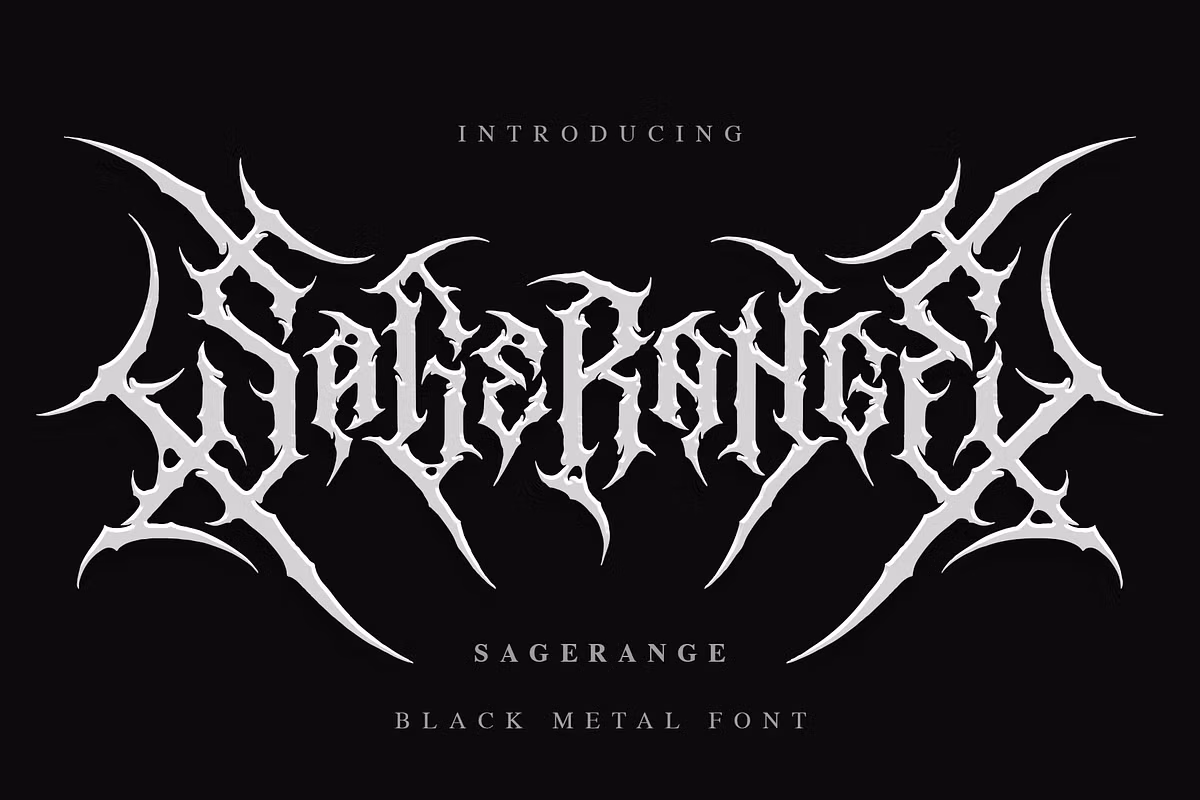
Sagerange | Black Metal Font Vol. 11 Free Download is a heavy, intense typeface inspired by the aggressive and gritty aesthetics of black metal music and culture. With its sharp, jagged edges, distressed textures, and bold letterforms, this font is perfect for album covers, music branding, posters, event flyers, and designs that need to evoke a sense of power, rebellion, and dark energy.
Using the Sagerange | Black Metal Font Vol. 11 Free Download adds a raw, intense edge to your projects. Whether you’re designing a metal band logo, promotional material for a concert, or artwork for a dark-themed project, this font creates an unforgettable impact.